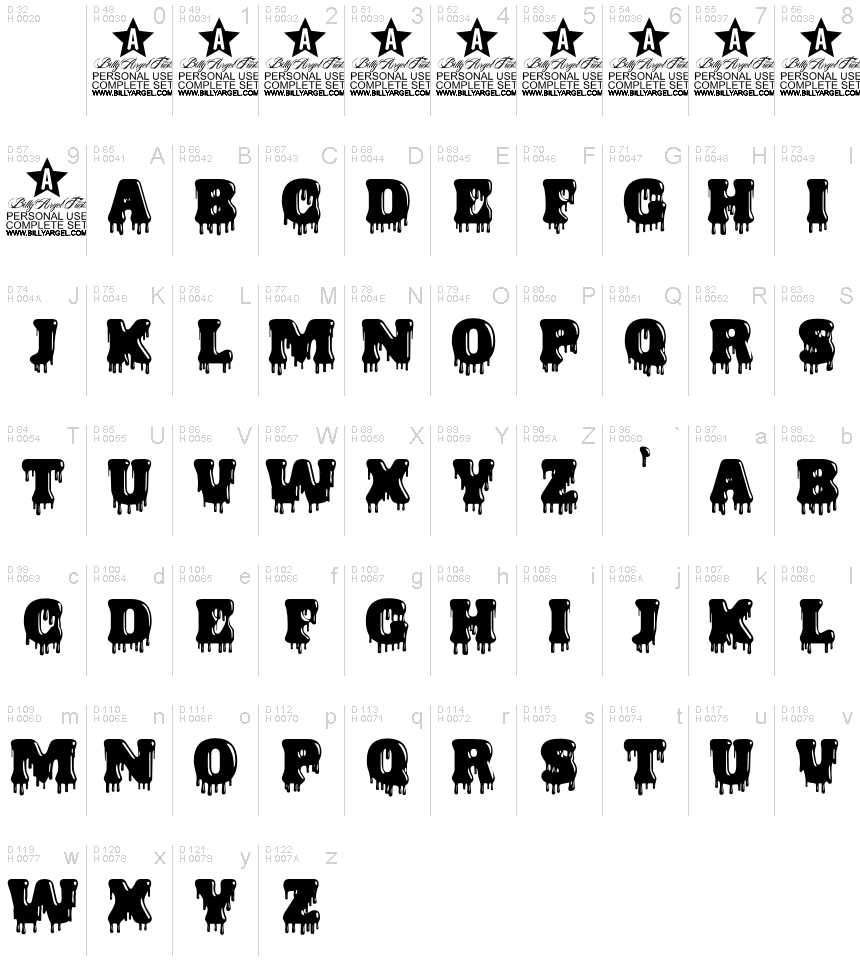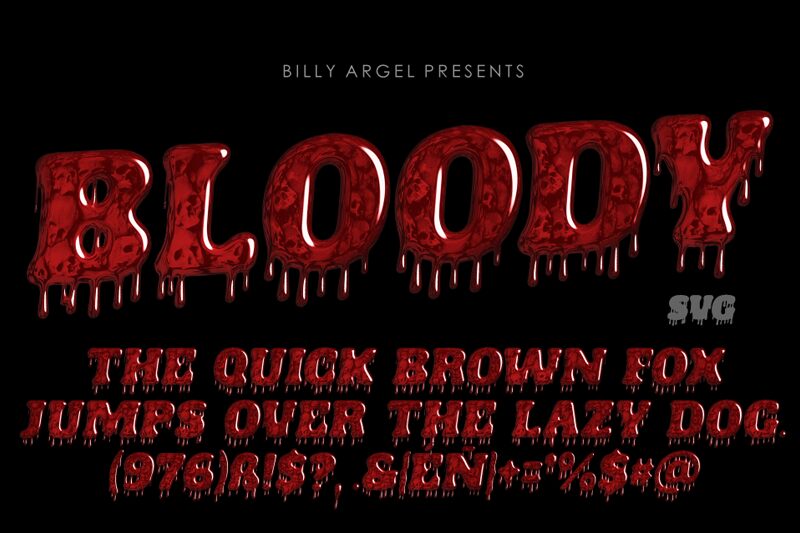
BLOODYTYPEPERSONALUSE-Bold
Bloody Type Bold font, from the Bloody Type family by Billy Argel Fonts, captures attention with its striking boldness and chilling scary style. This distinctive display font is perfect for creating a sense of suspense and drama.
Its dripping, eerie design evokes a haunting atmosphere ideal for Halloween-themed projects, horror movie posters, and edgy branding materials. Whether you're crafting spooky graphics or designing an eye-catching event invite, this free font offers a unique aesthetic appeal.